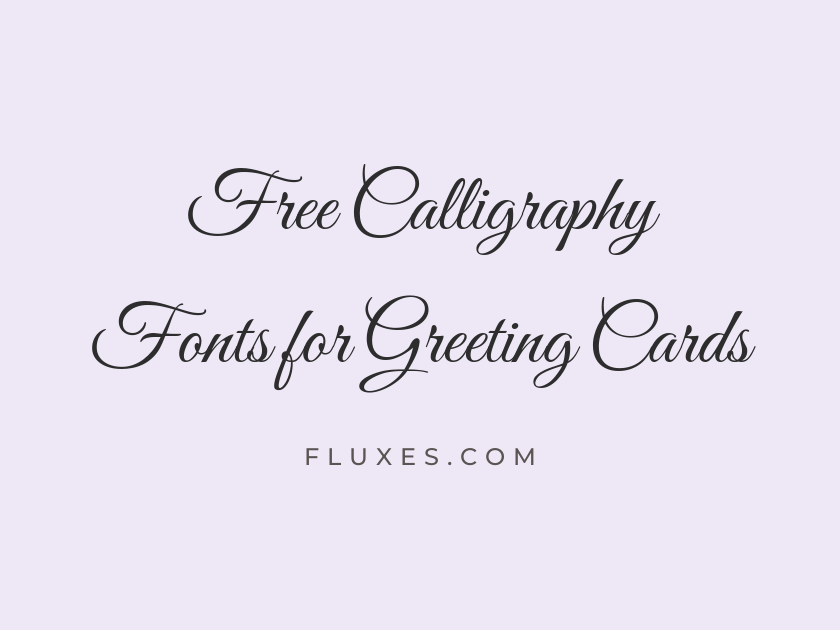
74 Best Free Calligraphy Fonts for Greeting Cards
Calligraphy has a way of making a card feel handwritten even when it comes off a printer, and that warmth is exactly what greeting cards need. Whether you are designing a birthday card, a wedding invitation insert, a holiday mailer, or a simple thank-you note, the right script font can carry the sentiment before a single word is read. Google Fonts has an enormous library of free calligraphy and script typefaces, ranging from formal copperplate-style scripts to loose, brush-lettered casual hands, and picking the right one changes the entire tone of the piece.
Below are the scripts worth knowing, organized loosely from the most elegant and formal down to the playful and casual, each with notes on where it shines and where it can trip you up.
1. Great Vibes
Great Vibes is one of the most downloaded scripts on Google Fonts for a reason: its long, confident swashes read as instantly celebratory without tipping into novelty. It pairs beautifully with a restrained serif for the message body, and it holds up well at large sizes on a card front, though the connecting strokes can blur at very small point sizes.
2. Alex Brush
Alex Brush has a looser, more brush-pen feel than many formal scripts, with a slight forward lean that gives it real energy. It works nicely as a signature-style flourish under a printed message.
3. Allura
Delicate and tightly joined, Allura leans toward the wedding-stationery end of the spectrum but translates just as well to engagement and anniversary cards. Keep it to shorter phrases; long sentences start to feel cramped.
4. Pinyon Script
Pinyon Script is the closest free equivalent to an engraved invitation hand, all long entry strokes and old-world formality. It suits milestone cards, retirement announcements, and anything meant to feel a touch ceremonial.
5. Parisienne
There is a softness to Parisienne that reads as more personal than polished, closer to a fountain-pen note than an engraver’s plate. It is a lovely choice for the inside message of a card rather than a shouty cover line.
6. Tangerine
Tangerine is thin, romantic, and quite small in its natural proportions, so it usually needs to be set larger than you expect. Once scaled up, it has an airy, love-letter quality that suits anniversary and Valentine’s cards especially well.
7. Sacramento
Sacramento sits between a script and a monoline handwriting style, with rounded, friendly letterforms and consistent stroke width throughout. That evenness makes it more legible at small sizes than most true calligraphy fonts, which is handy for card interiors packed with text.
8. Dancing Script
Few free fonts get more mileage than Dancing Script. Its bouncy baseline and generous curves feel cheerful rather than fussy, and the bold weight in particular stands up on a busy card design without disappearing into the background.
It has become something of a default choice for casual greetings precisely because it works at almost any scale, which also means it can feel a little familiar if your design otherwise leans distinctive.
9. Satisfy
Satisfy has a marker-pen quality, thicker and more casual than a pointed-nib script. It suits informal, friendly greetings more than anything meant to look elegant.
10. Cookie
Cookie leans playful and slightly retro, with rounded joins that make it feel approachable rather than precious. It is a good match for birthday cards aimed at a younger recipient.
11. Kristi
Fine-lined and quick-looking, Kristi mimics a fast, confident signature. It works well as an accent word, such as “thanks” or “love,” rather than as a full sentence, where its lightness can wash out.
12. Yellowtail
Yellowtail has thick, rounded strokes and a slight retro-surfboard charm, making it read more fun than formal. It reads well even at modest sizes because its strokes stay chunky rather than hairline thin.
13. Meddon
Meddon is gentler and more restrained than most of the scripts here, with narrower loops and a calmer rhythm that suits sympathy or thinking-of-you cards where a bouncy script would feel wrong.
14. Mrs Saint Delafield
This one looks genuinely handwritten, with irregular baseline drift and looping ascenders that recall a well-practiced fountain-pen hand. It is best used for short phrases rather than full paragraphs, since the irregularity that gives it charm also slows reading.
For printed cards, test at actual size before finalizing. A script that reads beautifully on a screen preview can behave very differently on textured or colored cardstock.
There is genuine range across these free Google Fonts, from stately copperplate hands fit for a wedding suite to loose, felt-tip scrawls perfect for a quick thank-you. Download a handful, set them at the size your card actually needs, and let the message guide which personality fits best.